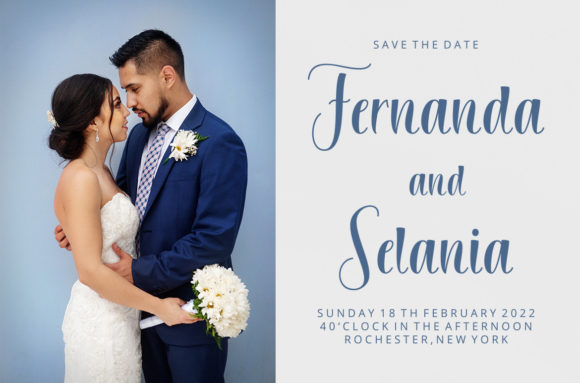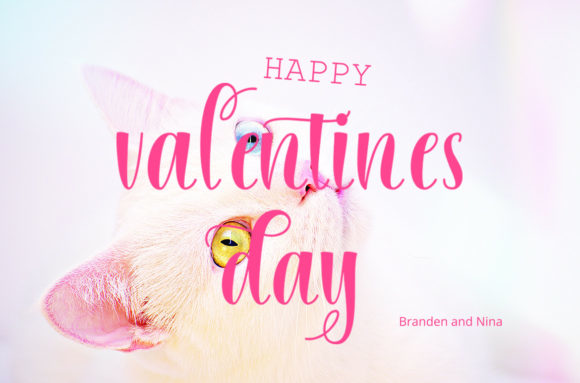
Jealousy Font
db-ku.com - Script & Handwritten -- Jealousy is a free-flowing script font created for packaging products, invitation cards, flyers, mockups, event posters, and anything else that requires high-quality vibes. This font is PUA encoded which means you can access all of the glyphs and swashes with ease.